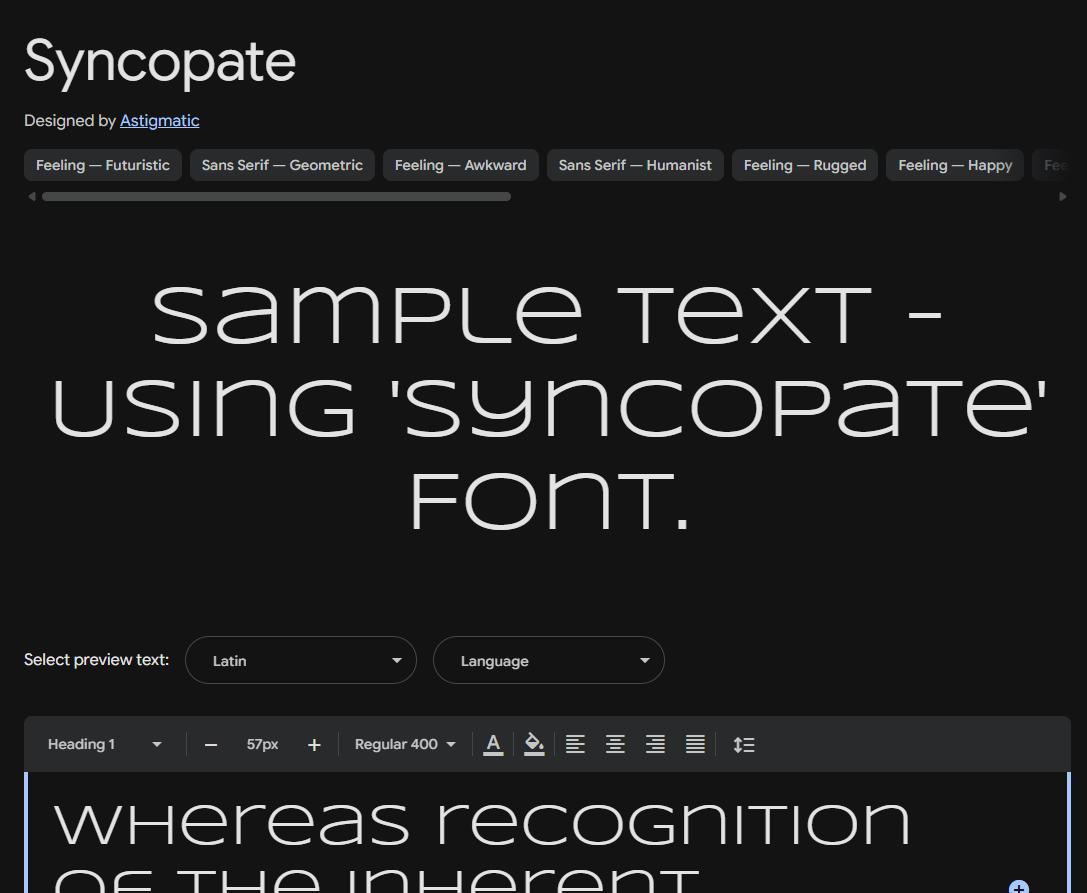
Syncopate, a minimalist geometric sans-serif engineered by Astigmatic, operates as a high-impact display face through its two distinct weights-Regular and Bold-which utilize an ultra-wide horizontal expansion to establish a rhythmic cadence reminiscent of its musical namesake. By prioritizing an extended glyph width and a low-slung x-height, the typeface manipulates negative space to command visual hierarchy in titling, where its architectural stroke consistency and open counters ensure legibility despite the aggressive lateral tracking. This structural emphasis on breadth over verticality allows designers to leverage Syncopate's cinematic presence, bridging the gap between mid-century modernist aesthetics and contemporary digital layouts that demand a robust, monolinear typographic foundation.
Syncopate functions as an expansive sans serif geometric display face, characterized by an ultra-wide tracking that establishes a decisively futuristic and techno atmosphere through its extreme horizontal metrics. While its monolinear architecture is inherently stiff and rugged, the intentional spatial distribution introduces an awkward yet innovative visual tension that borders on the wacky, reminiscent of vintage wide-format typography used in mid-century speculative fiction. Despite this rigid construction, the typeface possesses a surprisingly happy and sincere clarity that occasionally echoes the open apertures of a sans serif humanist model, allowing it to project a loud and active typographic presence that remains uniquely high-impact within modern interface design.
Syncopate, an ultra-wide geometric sans-serif from Astigmatic, is fundamentally incompatible with information-dense environments like legal documentation, medical journals, or mobile-first user interfaces where horizontal real estate is at a premium. Because of its extreme glyph expansion and inherently generous tracking, this typeface necessitates excessive line lengths that disrupt established ocular scanning patterns, making it a liability for long-form body copy where readability is paramount. The monolinear stroke weight and lack of humanist terminals fail to provide the optical contrast required for low-point-size rendering on high-DPI displays, often resulting in "letter crowding" at small scales despite its wide stance. Furthermore, its rigid architectural structure and futuristic aesthetic create a semiotic mismatch for heritage-based brands or artisanal businesses, as the typeface's mechanical horizontal rhythm lacks the organic stroke modulation and traditional x-height proportions necessary to convey warmth, history, or academic authority.
If you want to swap the wide, futuristic aesthetic of Syncopate for something equally striking, Gravitas One brings a powerful and heavy presence to your display headings. For a cleaner look that keeps that same sense of open letter spacing, Istok Web offers a professional balance that pairs perfectly with modern web layouts.
Syncopate pairs exceptionally well with brutalist and ultra-modernist aesthetics that prioritize horizontal expansion and structured, geometric layouts. Its extended glyph widths create a distinct x-height ratio that anchors cinematic posters and high-fashion branding through high-contrast spatial distribution.
Syncopate is generally not recommended for long-form body text because its extreme width disrupts natural reading rhythms and increases eye fatigue. The font's low character density per line-length triggers a significant increase in saccadic jumps, making it technically inefficient for any passage exceeding three lines.
Highly condensed sans-serifs or traditional, high-contrast serifs provide a necessary visual counterpoint to its expansive geometry. Pairing it with a vertical-axis typeface like Roboto Condensed creates a structural tension that balances the CSS flexbox-friendly nature of its horizontal proportions.
In minimalist editorial designs, Syncopate acts as a primary focal point that fills negative space without the need for additional decorative elements. Its geometric construction allows for a high degree of kerning manipulation, which enhances the "whitespace-to-ink" ratio essential for modern Swiss-style grid systems.
Syncopate is most effective when used for primary headlines or short, impactful display statements where its personality can dominate the page. Technical analysis suggests its display-oriented kerning pairs are optimized for high-point sizes, where its unique stroke-to-width ratio maintains visual equilibrium.
At smaller scales, the wide proportions of the characters cause individual letters to blur together, significantly reducing overall legibility. The font suffers from optical crowding below 14px, as the inter-character tracking becomes disproportionate to the stroke thickness on standard 72ppi displays.
Increasing the letter-spacing of Syncopate emphasizes its architectural qualities and creates a luxurious, breathable feel in high-end branding. Applying a tracking value of +100 or more leverages the font's geometric monolinear strokes to simulate a "tech-futurism" vibe often seen in aerospace telemetry displays.
The font is highly effective for high-tech and architectural sectors due to its rigid geometry and forward-thinking, industrial appearance. Its structural stability echoes the modularity of BIM (Building Information Modeling) aesthetics, making it a frequent choice for firms aiming to convey precision and scalability.
Syncopate shines brightest when used in all-caps, which highlights its uniform cap height and provides a clean, rectangular block appearance. While sentence case reveals its quirky descenders, the uppercase usage maximizes the font's "squareness" and aligns better with strict baseline grids.
The weight of Syncopate dictates its hierarchical role, with the Bold variant serving as a powerful navigational anchor in mobile and desktop UI headers. In light-themed interfaces, the Bold weight's high stroke-to-background contrast ratio ensures immediate recognition for primary call-to-action elements according to WCAG standards.